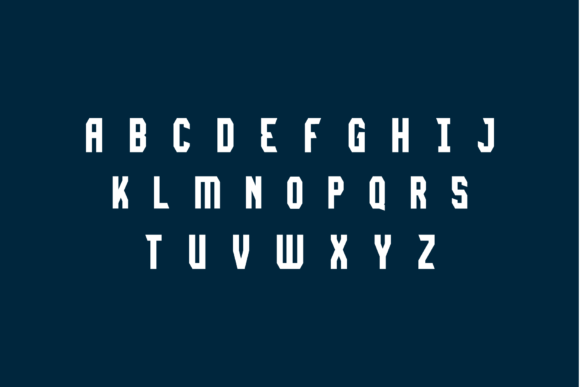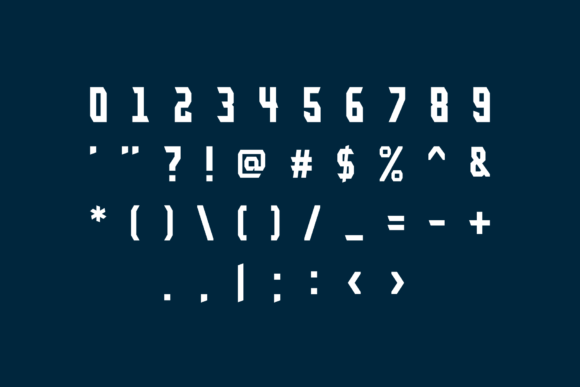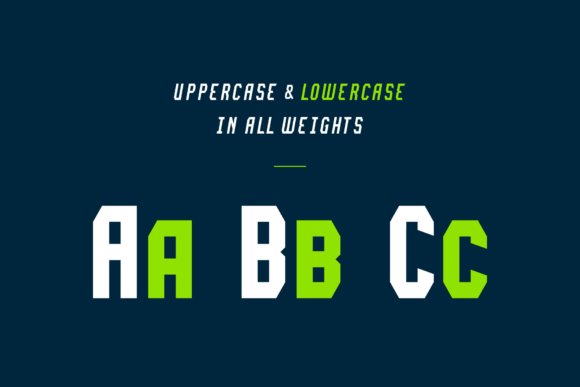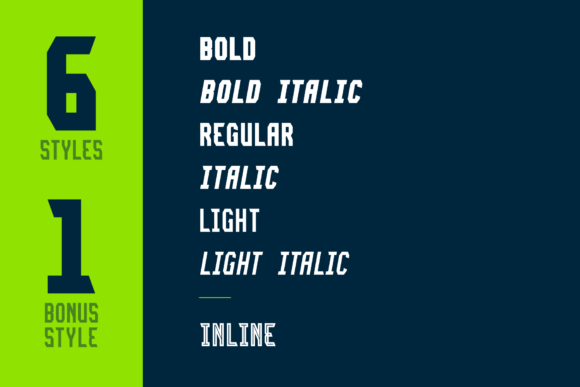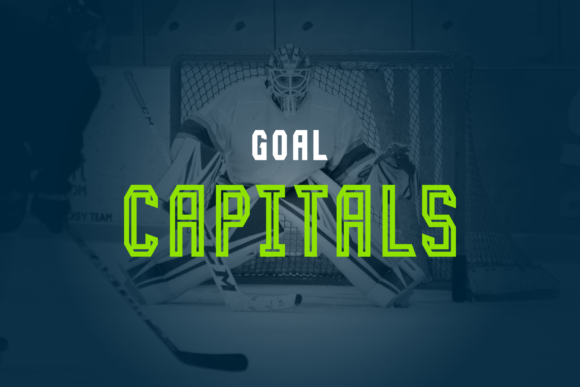
Introduction to Lightning Font
Have you ever been stuck on a design project, pouring over fonts and colors, trying to find that perfect combination to make it stand out? I know I have. But then, I stumbled upon the Lightning Font, and everything changed. This futuristic display font is like a lightning bolt of creativity, electrifying your designs and taking them to the next level.
| 📌 Product Name | Lightning Font |
| 👤 Author | Studio One Four |
As a designer, you’re always on the lookout for high-quality design resources that can elevate your creative projects. The Lightning Font is exactly that – a versatile and striking font that’s perfect for logos, cards, T-shirts, magazines, book covers, and movie posters. And the best part? It’s available for free download, making it an accessible design resource for designers of all levels.
With its transparent background and sleek design, the Lightning Font is the perfect addition to any creative project. Whether you’re a seasoned pro or just starting out, this font is sure to make your designs shine.
Key Features of Lightning Font
- High-quality design: Lightning Font is a beautifully crafted font suitable for creative projects that require a high level of sophistication.
- Perfect for creative projects: Lightning Font is an excellent resource for designers, artists, and writers working on creative projects that require a unique and eye-catching font.
Honest Review: Lightning Font
I recently stumbled upon the Lightning Font, and I must say, it’s a gem. This free download is perfect for any creative project that needs a high-quality, modern font.
- ✨ High-quality design: The Lightning Font is incredibly well-designed, with crisp lines and a transparent background that makes it easy to use on any background.
- ✨ Versatile: Whether you’re working on a logo, branding materials, or just a simple text-based design, the Lightning Font is an excellent choice.
However, I do have a few minor issues with the font:
- ⚠️ Limited language support: Unfortunately, the Lightning Font only supports a limited number of languages, which might be a problem for designers working on multilingual projects.
- ⚠️ Not ideal for small text: While the font looks great at larger sizes, it can become a bit difficult to read when used in smaller text sizes.
Overall, I’m really impressed with the Lightning Font. It’s a fantastic design resource that can elevate any creative project. Just be mindful of its limitations, and you’ll be golden!
Tips for Getting the Most Out of Lightning Font
For optimal results, use the Lightning Font in conjunction with a high-quality image or design element. Experiment with different font sizes and styles to add visual interest to your design.
Common Use Cases for Lightning Font
The Lightning Font is ideal for creative projects that require a bold, eye-catching font. Use it for headings, titles, or emphasis in designs such as infographics, brochures, or social media graphics.